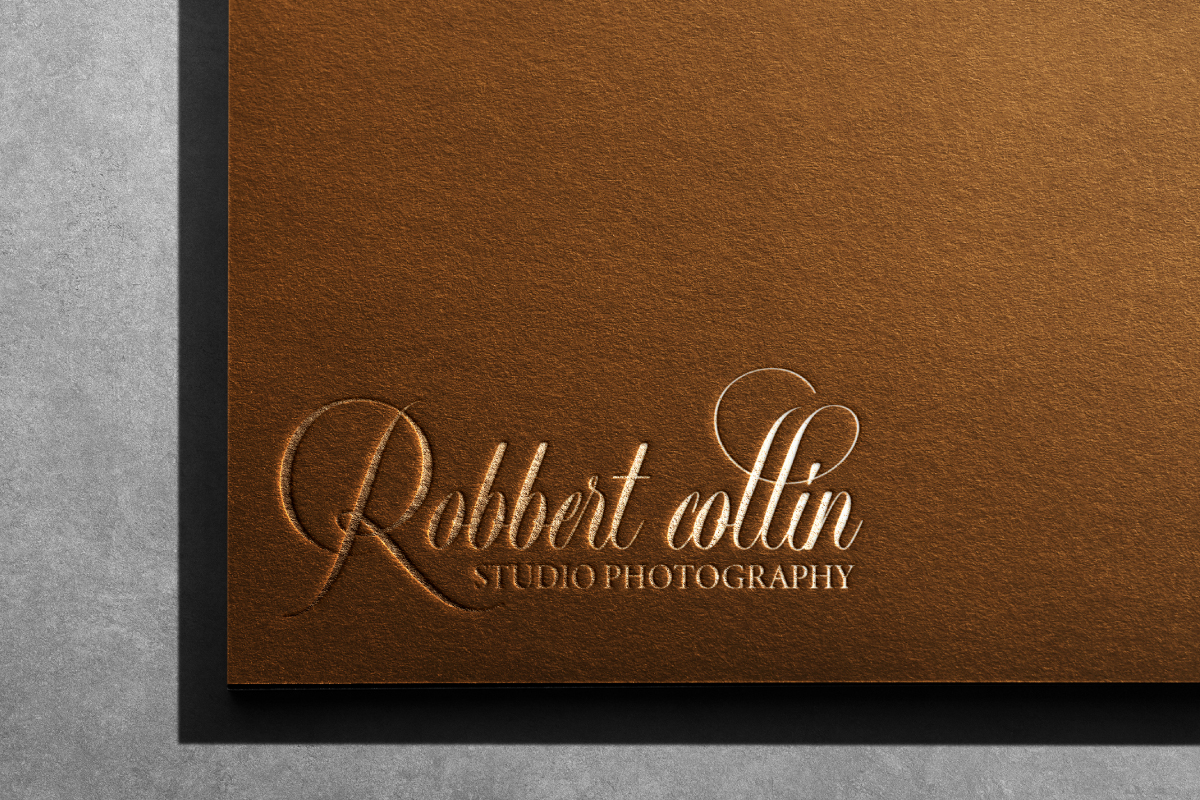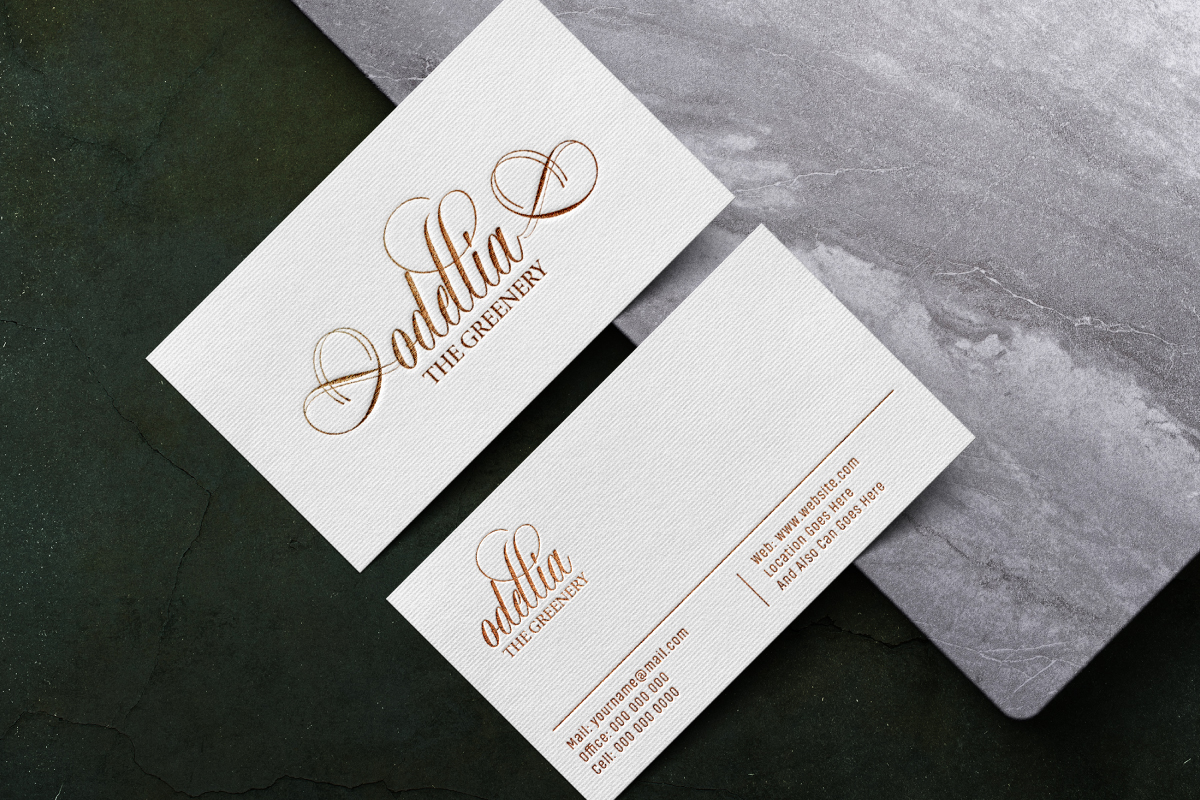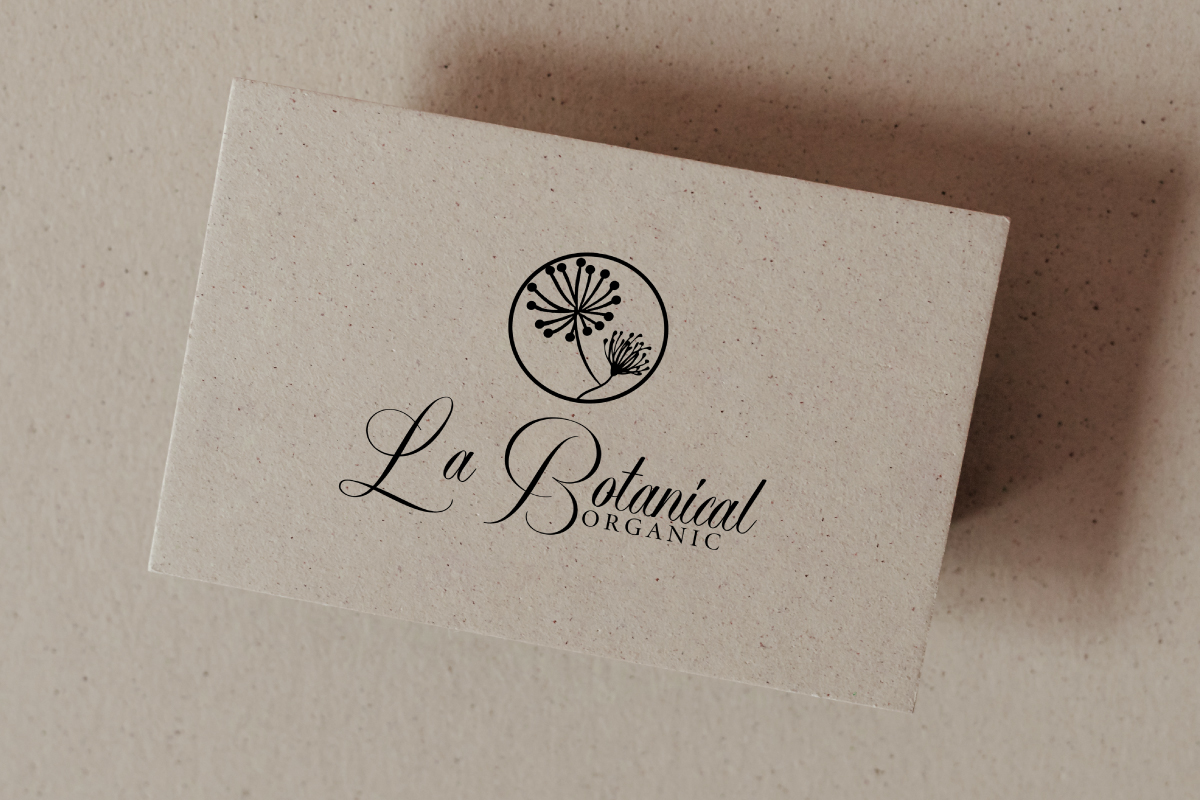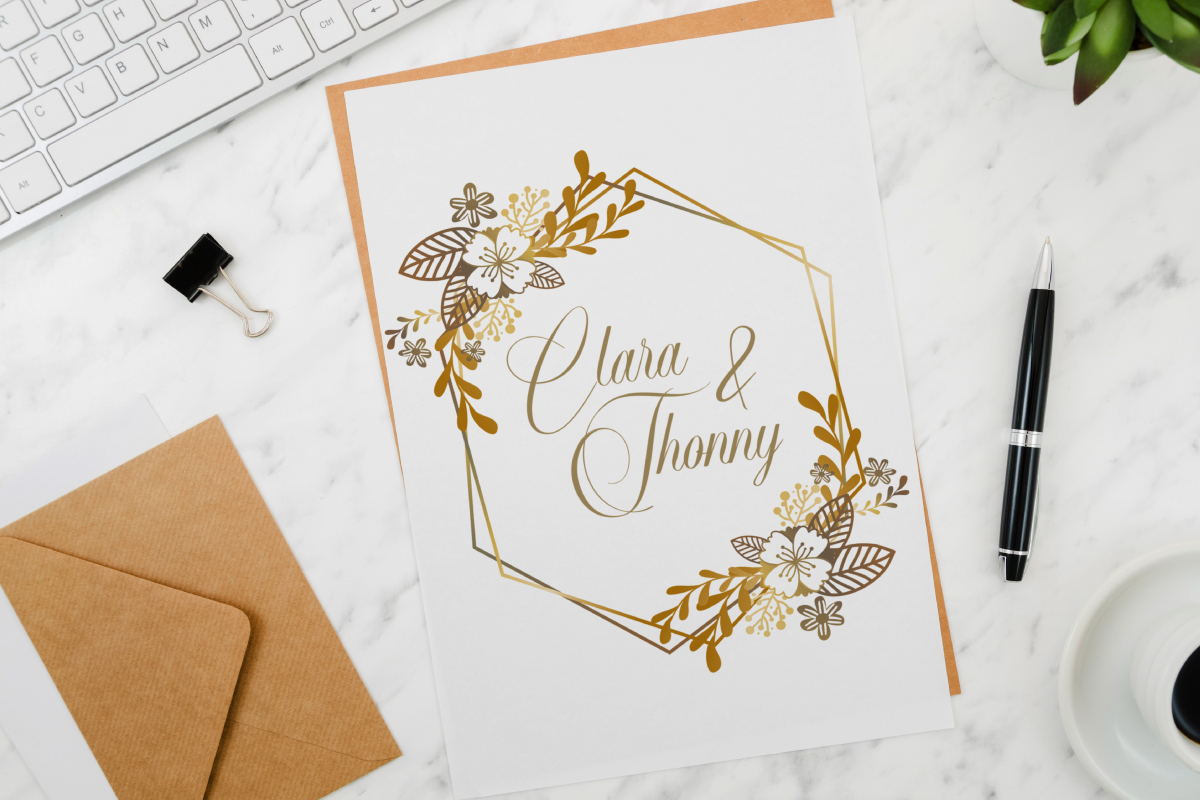
Beauty Parade Calligraphy Font
This is a beautiful calligraphic font with luxurious and modern style. This font is crafted carefully in every its single letter so we can make sure it has great looking, inspired by lovely wedding letterings. Carefully designed to work together in harmony and This one should make your designs instantly professional and jaw-dropping!
Beauty Parade Calligraphy Font includes full set of Uppercase and Lowercase Basic Characters, Numerals and Punctuation. Also it contains ligatures to make it flowless characters to perfectly make awesome look that add more aesthetic fonts to perfect your extraordinary project. Beauty Parade Font will be great for wedding, engagement, holiday, writer, musician, singer, artist, composer, architect, etc